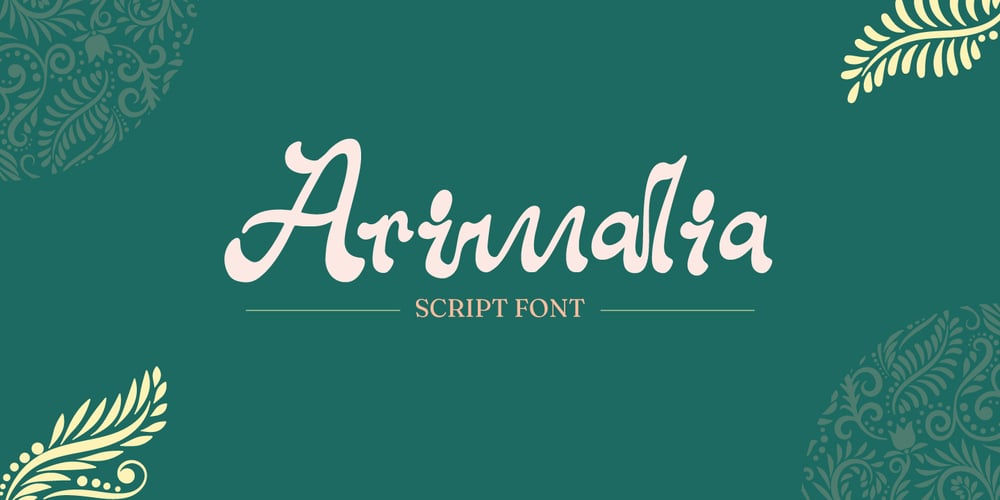
Arimalia Font Family was designed by Fadli Ramadhan Iskandar and published by Attype Studio. Arimalia contains 1 styles and family package options. Arimalia is unique script font with lovely ligatures. This font perfect for elegant & logotype design.Combine Alternates Character to make perfect design for yor projects. Arimalia perfect for elegant promotion, wedding invitation, branding, logo, invitation, stationery, social media post, product packaging, merchandise, blog design, game titles, cute style design, Book/Cover Title and more.Features :- Arimalia Font- Ligatures- Multilingual, US Roman, Latin 1 Support —Hope you enjoy with our font!Attype Studio